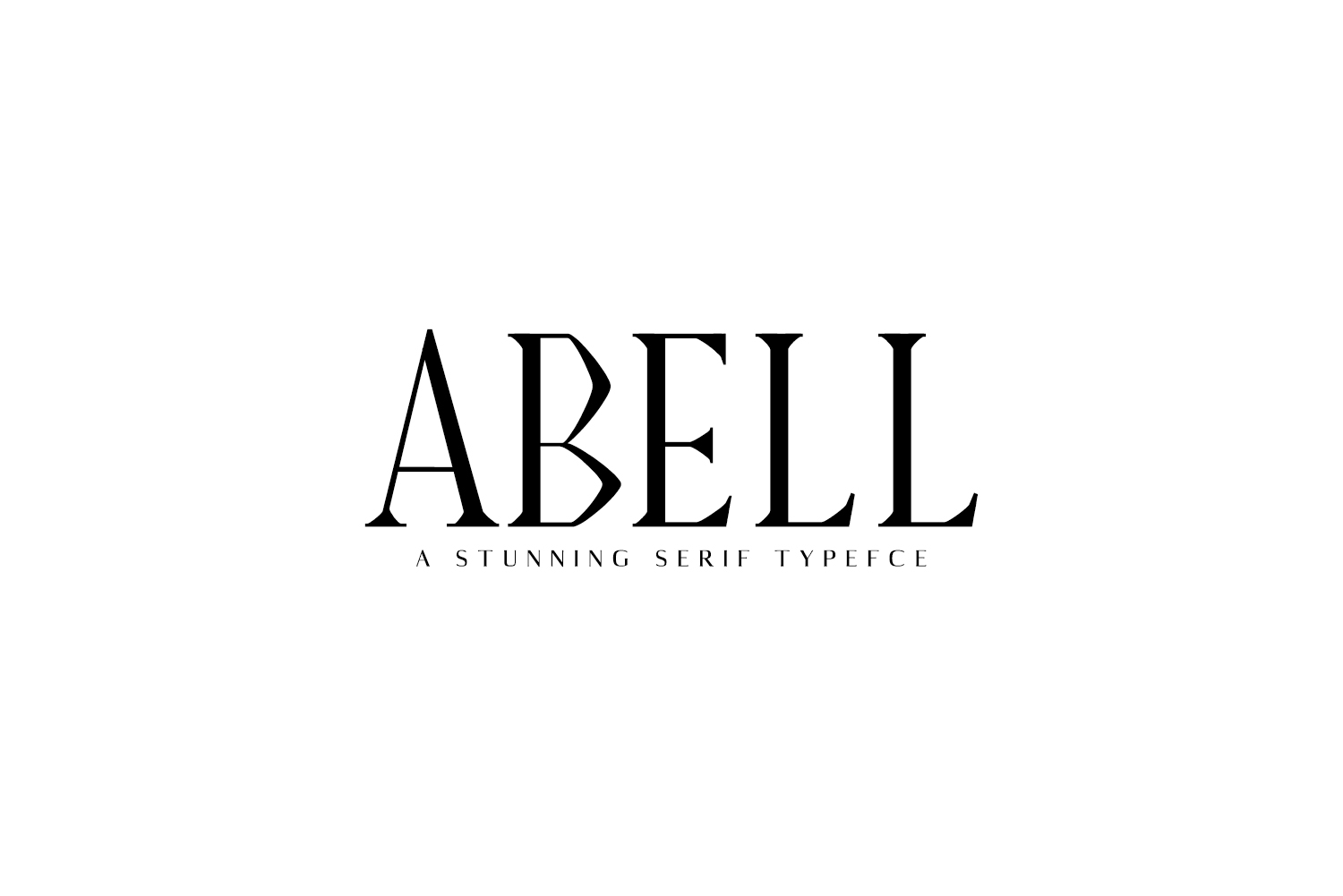
The Abell Font: Elevate Your Designs with Art-Deco Flair
I still remember the design project that led me to discover the Abell font. I was working on a vintage-inspired branding campaign for a luxury fashion brand, and I was struggling to find the perfect serif font that would capture the essence of art-deco elegance. That’s when I stumbled upon Abell, and it instantly became my go-to font. With its unique blend of classic and modern elements, Abell added a touch of sophistication to my designs that I had never seen before.
An Honest Review of Abell Font
What I Love About Abell ✨
- ✅ Unique Art-Deco Style: Abell boasts an unmistakable art-deco flair that instantly elevates any design.
- ✅ Versatile Weight Options: The font family includes 5 different weights, providing flexibility for various design applications.
- ✅ Serif Sophistication: Abell’s serif details add a level of sophistication and elegance to any text.
- ✅ Easy Pairing: This font pairs beautifully with both script and sans serif fonts, making it a versatile choice for designers.
While Abell is an excellent font, there are a few minor considerations to keep in mind:
- 🤔 Legibility at Small Sizes: Like many serif fonts, Abell may lose some legibility at very small sizes. It’s best used at larger sizes where its details can shine.
- ⚠️ Glyph Variety: While Abell has a range of glyphs, it may not have as extensive a character set as some other fonts. This could be a consideration for projects requiring a wide range of special characters.
The Story Behind Abell Font
The Abell font was designed with the intention of capturing the essence of art-deco elegance in a modern serif font. Inspired by the geometric shapes and luxurious materials of the art-deco era, Abell brings a touch of vintage glamour to contemporary designs. Its creator aimed to produce a font that would be both stylish and versatile, suitable for a wide range of design applications.
Q: What makes Abell font unique?
A: Abell’s unique blend of art-deco elements and modern serif characteristics sets it apart from other fonts.
Q: Is Abell suitable for body text?
A: While Abell is elegant and stylish, it’s best used for headings and titles due to its serif nature and art-deco details. For body text, a more straightforward font may be more readable.
Q: Can I use Abell with sans serif fonts?
A: Absolutely! Abell pairs well with both script and sans serif fonts, making it a versatile choice for various design projects.